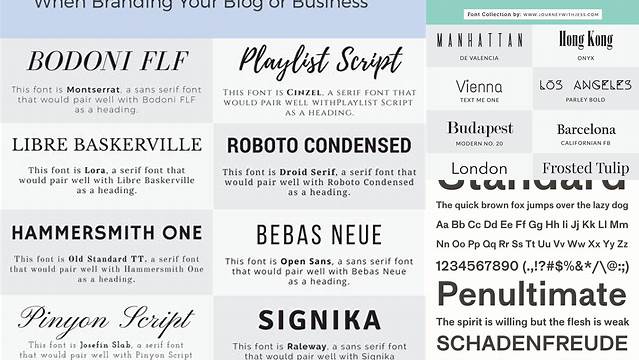
Free Corporate Standard Fonts: Your Guide
Hey guys! So, you're on the hunt for that perfect corporate standard normal font, and you want it to be free. Totally understandable! In today's business world, presentation matters. Whether you're crafting a killer presentation, designing a sleek brochure, or just need a reliable font for everyday documents, having the right typeface can make a huge difference. It's not just about looking good; it's about conveying professionalism, clarity, and brand identity. We're talking about those fonts that just scream 'business-appropriate' – clean, readable, and timeless. Think of fonts like Arial, Calibri, or Times New Roman. They’ve earned their status as corporate staples for a reason! They’re versatile, widely recognized, and generally available on most systems, making document sharing a breeze. But what if you need something a little more… you, without breaking the bank? That’s where diving into the world of free corporate standard normal fonts comes in. It can feel like a treasure hunt, sifting through countless options to find those hidden gems that fit your needs. But don't worry, I've got your back. We'll explore what makes a font 'corporate standard,' why 'normal' is actually a good thing in this context, and most importantly, where you can snag some fantastic free options. Get ready to upgrade your visual game without spending a dime. We’ll cover everything from the classic choices to some slightly more modern takes that still nail that professional vibe. So, grab your favorite beverage, get comfy, and let's dive into the wonderful world of typography for your business needs!
Understanding 'Corporate Standard' Fonts
Alright, let's break down what we actually mean when we talk about a 'corporate standard' font. It’s not some super-secret industry term, but rather a general understanding of typefaces that are widely accepted and considered appropriate within a professional business environment. Think of these as the fonts that don't raise eyebrows in a boardroom. They're generally sans-serif or serif fonts that prioritize legibility and a clean, uncluttered aesthetic. Sans-serif fonts, like Helvetica or Open Sans, are characterized by their lack of decorative strokes (the little feet or flares) at the ends of letters. This gives them a modern, clean, and often minimalist feel, which is fantastic for digital interfaces, headings, and body text where readability on screens is paramount. On the other hand, serif fonts, such as Garamond or Georgia, have those little decorative strokes. Historically, serifs were thought to help guide the eye along the line of text, making them excellent for long-form printed documents like books and reports. While the distinction isn't always rigid, sans-serif fonts have become increasingly dominant in corporate settings, especially with the rise of digital communication.
What makes a font truly 'standard' in a corporate context is its ubiquity and versatility. These are fonts that most people are familiar with, often pre-installed on computers, and render well across various platforms and software. This familiarity reduces cognitive load for the reader; they don’t have to struggle to decipher the text. A corporate standard font also needs to be highly legible at various sizes. A font that looks great large but becomes a blob of ink when shrunk down for a business card or a small heading isn't ideal. Professional fonts maintain their clarity and distinct letterforms whether they’re in a massive billboard advertisement or a tiny footnote. Furthermore, a standard font should evoke a sense of reliability, trustworthiness, and professionalism. It shouldn't be overly quirky, decorative, or trendy in a way that might distract from the message or date the brand quickly. The goal is timelessness and broad appeal. So, when you’re looking for these types of fonts, you’re generally aiming for clean lines, balanced letterforms, and a neutral yet impactful presence. They form the bedrock of visual communication in business, providing a stable and professional foundation for any message.
The Power of 'Normal' in Font Selection
Now, let’s talk about the word 'normal'. In the context of corporate fonts, 'normal' isn't a bad thing at all, guys! In fact, it's often a very good thing. When we say 'normal font,' we're usually referring to a typeface that is straightforward, easily readable, and doesn't have any jarring or unusual characteristics. Think of it as the reliable workhorse of the font world. These fonts are designed with clarity and accessibility in mind, ensuring that your message gets across without any visual distractions or misunderstandings. They are the visual equivalent of clear, concise language – they do their job effectively without calling unnecessary attention to themselves. This 'normalcy' is precisely what makes them so suitable for corporate use.
Why is this 'normal' quality so crucial? Firstly, it ensures maximum readability. A normal font has well-defined letterforms, adequate spacing between letters (kerning) and words (tracking), and a comfortable x-height (the height of lowercase letters like 'x'). This means your audience can read your reports, emails, and presentations effortlessly, whether they’re scanning quickly or reading in-depth. Secondly, 'normal' fonts are incredibly versatile. They adapt seamlessly to different contexts – from formal reports and legal documents to marketing materials and website copy. They don't impose a strong personality that might clash with your brand's message. Instead, they provide a neutral, professional canvas that allows your content to shine. Imagine using a highly decorative or unusual font for a financial report – it would likely undermine the seriousness and credibility of the information. A normal font, however, reinforces it.
Thirdly, these fonts are often widely available and compatible. Many 'normal' fonts are either system fonts (like Arial or Times New Roman) or are freely available through platforms like Google Fonts. This means you don't have to worry about licensing issues or whether the recipient of your document will be able to see the font correctly. When everyone can see your document as intended, it maintains a consistent and professional image for your brand. So, while 'normal' might sound a bit bland, in the corporate font world, it translates to reliability, clarity, accessibility, and professionalism. It’s the foundation upon which strong visual communication is built, ensuring your message is understood clearly and effectively every single time. Embracing the 'normal' is embracing effective communication.
Where to Find Free Corporate Standard Fonts
Another fantastic resource is Font Squirrel. This website meticulously curates a collection of high-quality free fonts that are all explicitly licensed for commercial use. They have a great filtering system too, allowing you to sort by license type, which is super important when you're looking for corporate-friendly options. Font Squirrel often features some really stylish and professional-looking fonts that you might not find elsewhere. They also offer tools like the Webfont Generator, which is handy if you plan to use the fonts on your website. Beyond these two powerhouses, keep an eye on individual foundries or designers who occasionally release free fonts as part of their portfolio or for promotional purposes. Sometimes, Behance or Dribbble can lead you to these gems, though you always need to double-check the licensing terms carefully. Remember, the key is to always verify that the font license permits commercial use. Most reputable free font sites make this information clear, but it’s always better to be safe than sorry. With these resources, you're well-equipped to build a robust library of professional, free fonts for all your corporate needs!
Top Free Sans-Serif Corporate Fonts
Let's get down to brass tacks, guys. When we talk corporate, sans-serifs often steal the show. They're clean, modern, and incredibly versatile, making them perfect for everything from annual reports to email signatures. If you're on the hunt for free options that nail that corporate standard vibe, you've got some stellar choices. First up, we absolutely have to talk about Open Sans. This font is practically the definition of a go-to corporate sans-serif. Developed by Steve Matteson, it's humanist in its form, meaning it has subtle variations in stroke width that give it a warmer, more natural feel compared to purely geometric sans-serifs. It boasts excellent readability across print and web, with multiple weights and styles (including italics) that provide plenty of flexibility for headings, body text, and even captions. Its open letterforms ensure clarity even at smaller sizes, making it a safe and effective choice for virtually any business document. You’ll find it used everywhere, and for good reason – it just works.
Next on the list is Lato. Created by Łukasz Dziedzic, Lato (which means 'summer' in Polish) has a subtle warmth and friendliness despite its professional structure. It starts as a sans-serif but gains a certain characteristic through its semi-rounded details. This gives it a unique personality without sacrificing its corporate suitability. Lato comes in a wide range of weights, from thin to black, offering designers a rich palette to work with for different typographic hierarchies. It’s particularly great for creating clean, modern layouts that feel approachable yet sophisticated. It strikes a beautiful balance between being functional and having a touch of distinctive flair. Another solid contender is Roboto. Developed by Google for its Android operating system, Roboto is a neo-grotesque sans-serif that aims to be mechanical yet natural. Its mechanical skeleton provides rigid structures, but its friendly curves give it a softer, more approachable feel. Roboto is designed to be highly legible on screens of all types and sizes, making it an excellent choice for digital corporate communications, websites, and apps. It has a comprehensive family of weights and styles, ensuring it can handle almost any typographic challenge you throw at it. Montserrat is another fantastic option, inspired by the old posters and signs from the Montserrat neighborhood in Buenos Aires. It's a geometric sans-serif with a strong, clean, and modern aesthetic. It offers a good range of weights and is particularly effective for headlines and display text, but it also holds up well for shorter blocks of body copy, especially when you need a bit more visual impact. These fonts – Open Sans, Lato, Roboto, and Montserrat – are just the tip of the iceberg, but they represent some of the best free sans-serif options available for achieving that professional, corporate look. They are reliable, highly readable, and offer the versatility needed to elevate your business communications.
When implementing these fonts, it's essential to follow best practices. Firstly, only load the specific weights and styles you actually need. If you only plan to use a font in its regular and bold weights, don't load the light, italic, and black versions. Loading unnecessary files slows down your website. You can typically specify which weights you need when linking the font via the Google Fonts API or through CSS. Secondly, consider font display strategies. Using font-display: swap; in your CSS is a common and effective technique. This tells the browser to use a fallback font while the custom font is loading, and then swap it in once it's ready. This prevents the